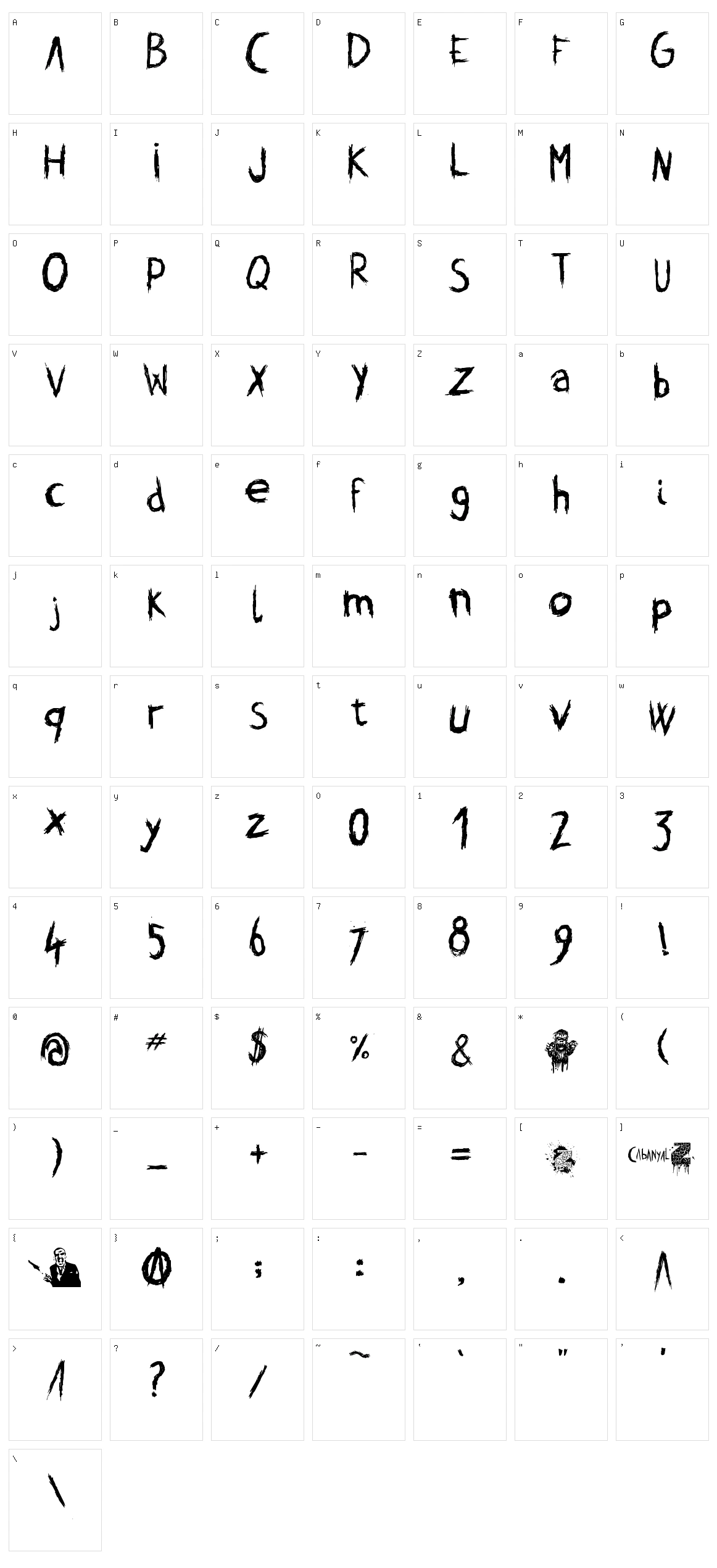
The free font Cabanyal Z is carefully designed by Jorgito Abuin, showcasing a thoughtful balance of creativity and usability and falls under the Horror font style. When you download the ZIP file, it contains only 70.16 KB of font files, making it lightweight and quick to download. Please review the license details below to understand permitted usage and distribution rights. If license information is not available, we recommend using this font for personal projects only or contacting the author directly for commercial usage permissions.